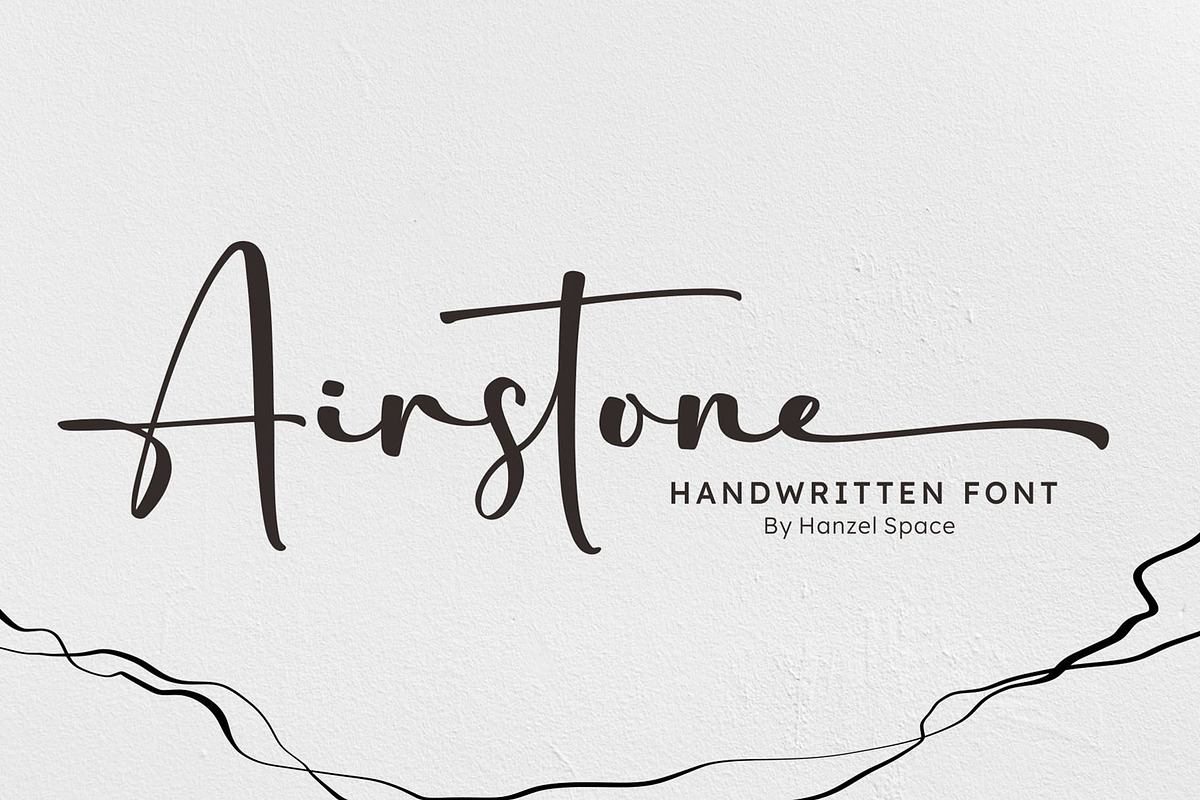
Airstone | Handwritten Font is perfect for organic brand identities, natural product packaging, artisanal craft labels, eco-friendly marketing materials, handmade business branding, authentic restaurant menus, casual invitation designs, personal blog headers, creative portfolio projects, lifestyle brand communications, wellness product designs, and earth-conscious advertising campaigns.
Airstone | Handwritten Font is exciting because it perfectly balances natural authenticity with contemporary style, creating handwritten typography that feels both grounded and fresh like smooth stones shaped by wind and time. This remarkable typeface features organic letterforms with subtle irregularities that capture the essence of genuine handwriting while maintaining excellent readability and professional appeal. The font's earthy character brings warmth and human connection to digital designs.
Airstone | Handwritten Font includes comprehensive font families: Regular Natural Style, Bold Confident Weight, Light Gentle Touch, Medium Balanced Format, Italic Flowing Movement, Condensed Compact Version, Extended Wide Presence, Rough Textured Alternative, Clean Polished Style, and Special Organic Symbols, providing versatile solutions for authentic handwritten design needs.
This authentic typography solution transforms digital communications into personal, handcrafted experiences through its genuine handwritten aesthetic and natural design language. Airstone | Handwritten Font Free Download offers designers access to premium organic typography that instantly adds authenticity, warmth, and human touch to any creative project. The font's carefully observed natural variations ensure realistic appearance while maintaining consistent quality and professional standards.
Creative professionals and artisanal brands appreciate Airstone | Handwritten Font for its ability to communicate authenticity, craftsmanship, and personal connection to audiences seeking genuine, handmade experiences in an increasingly digital world. The typeface's versatile construction performs exceptionally well across various applications, from intimate personal branding to larger commercial campaigns. Its extensive character support includes multilingual capabilities and organic design elements that enhance natural brand presentations.
The design philosophy behind Airstone | Handwritten Font draws inspiration from natural textures, handcrafted traditions, and the timeless appeal of authentic personal expression in our modern technological landscape. This nature-focused approach creates a font that feels genuinely handwritten while maintaining contemporary relevance and professional versatility across different industries and brand personalities.